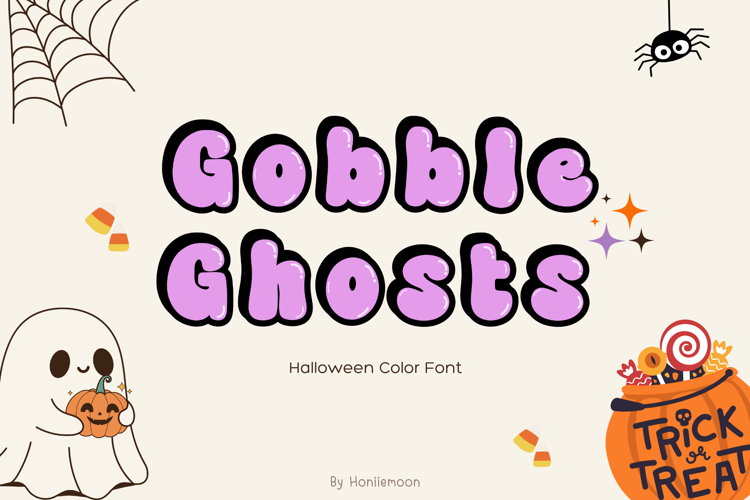
Gobble Ghosts is a fun display font, perfect for your favorite projects such as posters, flyers, social media, movie and book titles, invitations, stickers t-shirts, logos, advertisements, clothing, and so much more.